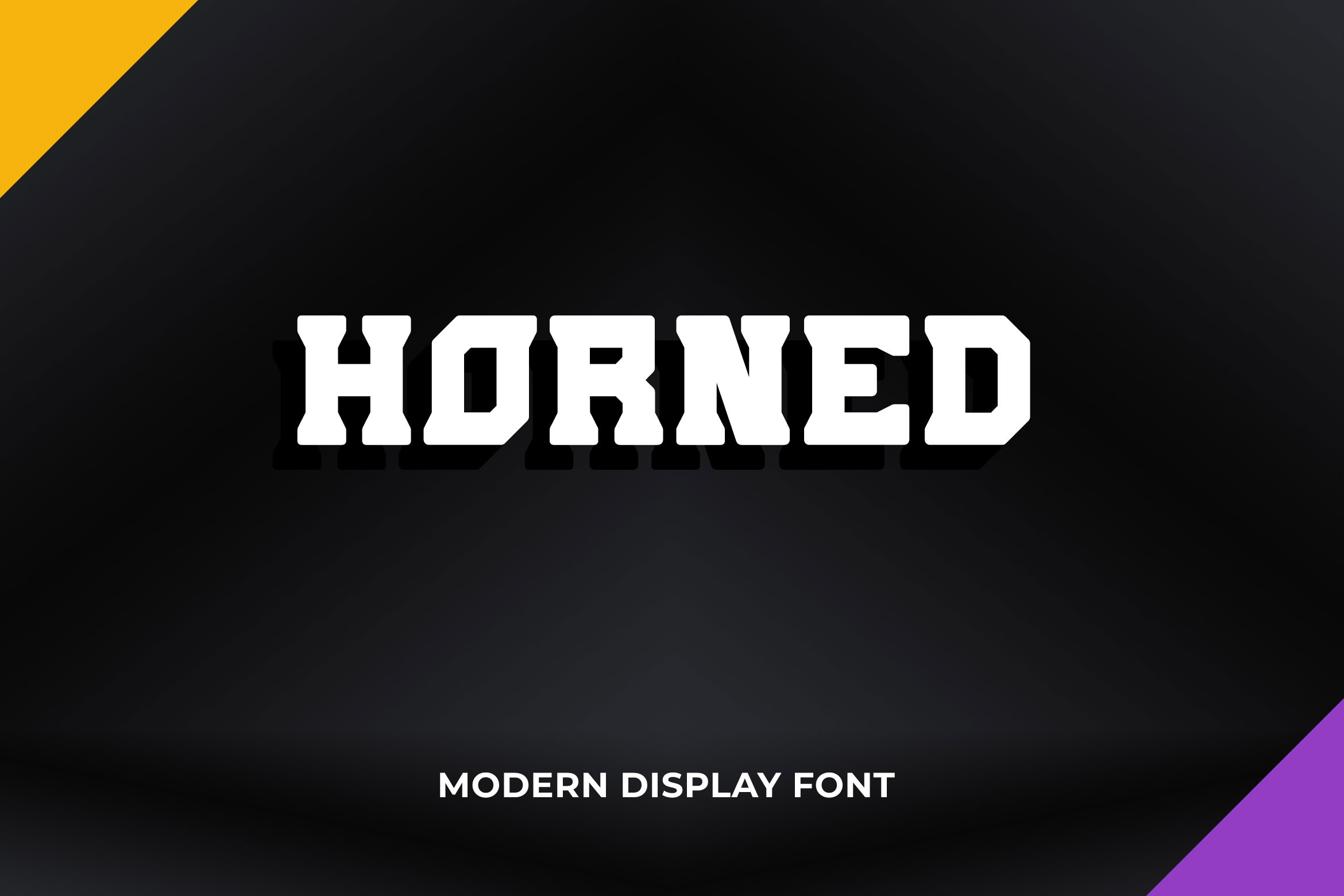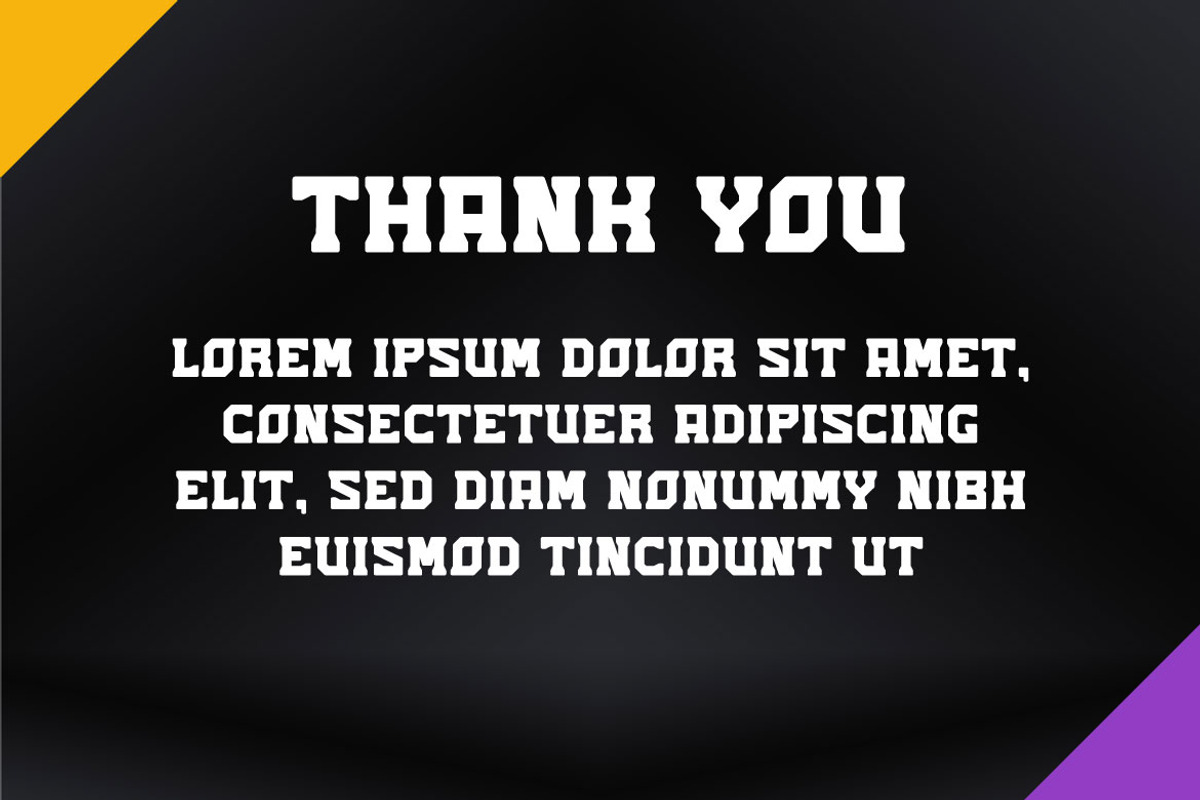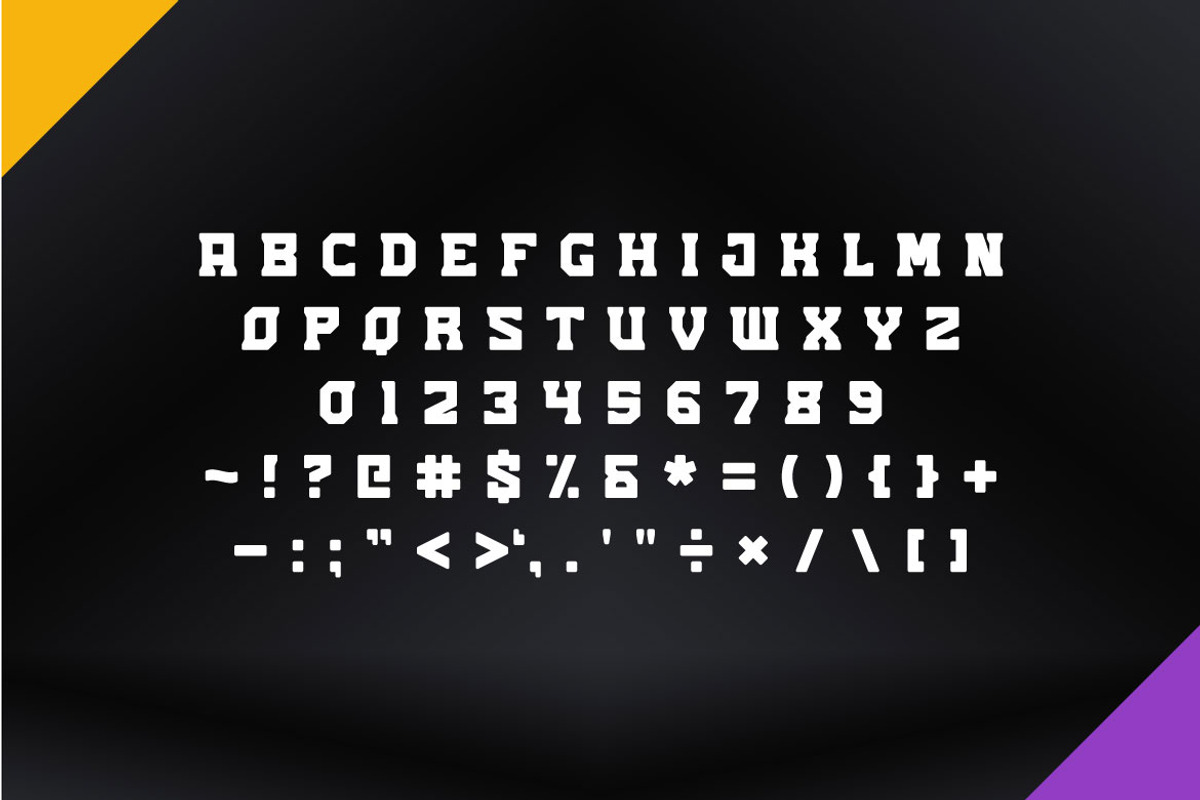
Horned - Modern Bold Display Font
HORNED is a display font with capital letter. It has a bold and modern style which will bring a unique feel in each word. Horned can be used in any works such as children book, poster, advertisement, social media content, logo and many more.